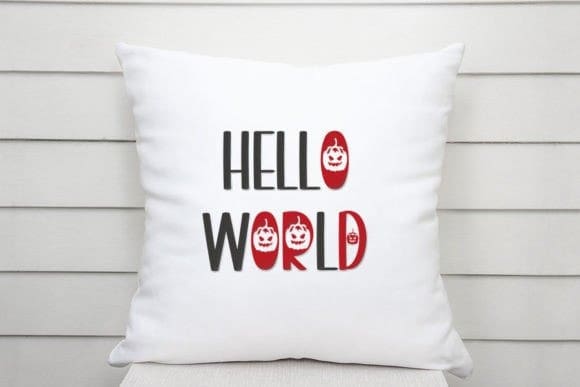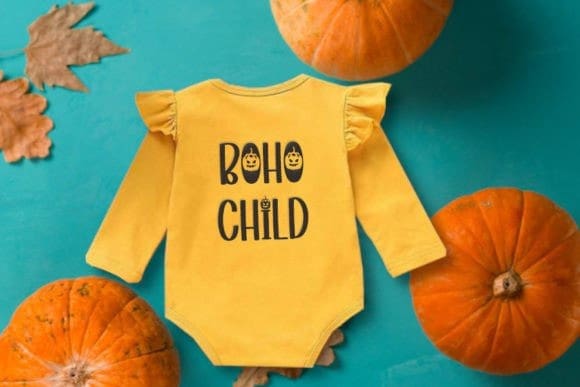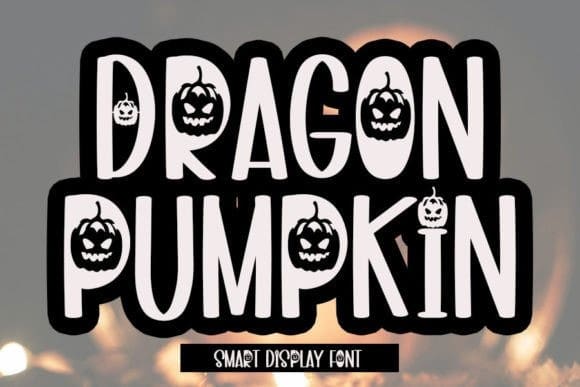
Dragon Pumpkin Font
Dragon Pumpkin Font is an enchanting display font. This versatile font has a wide spectrum of applications ranging from greeting cards to headlines and is guaranteed to add an autumnal feel to your next project.